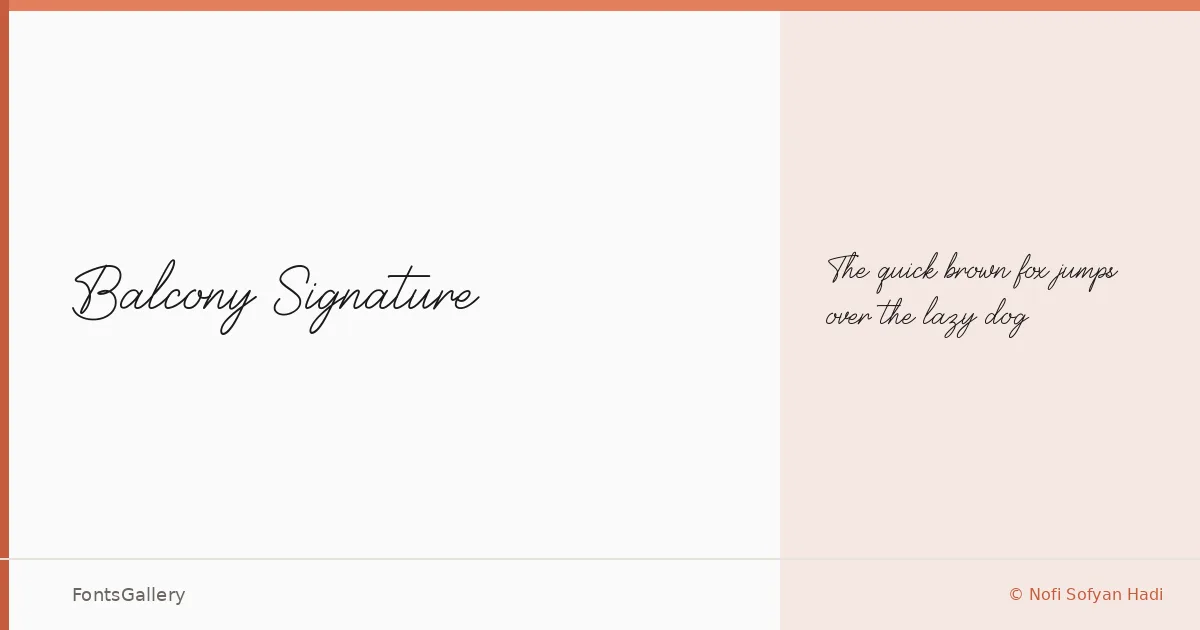
About Balcony Signature Font
There is a particular quality to a well-drawn signature script — the way the pen lifts and reconnects, the slight lean that implies motion without losing legibility. This family, created by Nofi Sofyan Hadi under the Heinzel Std imprint, captures exactly that quality in a single Regular cut delivered as a TTF file. The letterforms carry the kind of romantic elegance that comes from studying how hands actually write, not just how cursive is supposed to look.
Balcony Signature sits firmly in the script category, drawing on a classic, elegant sensibility with a decidedly romantic undertone. There is only the one style here — Regular — so what you see is what the designer intended as the complete statement: flowing joins, expressive ascenders and descenders, and a rhythm that feels personal rather than mechanical. It covers the Latin writing system, keeping the scope focused and the execution clean.
The face earns its place on wedding invitations, greeting cards, and any branding or logo work that calls for warmth and ceremony. It pairs well alongside the cool neutrality of Helvetica or the refined structure of Alexandria, and the listed companions Aresink, Bizantheum, and Canela each offer their own contrasting weight or tone if you want to build a more layered typographic system around it.